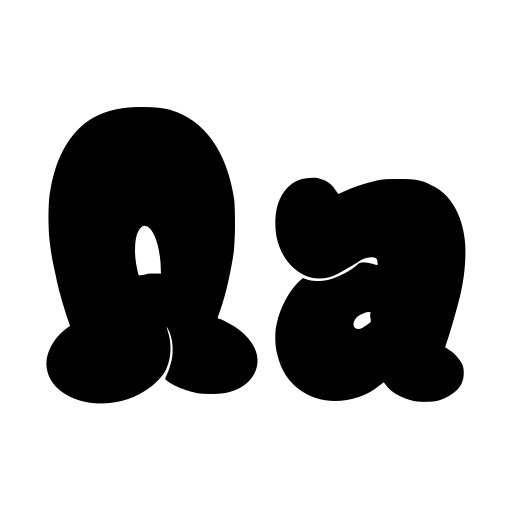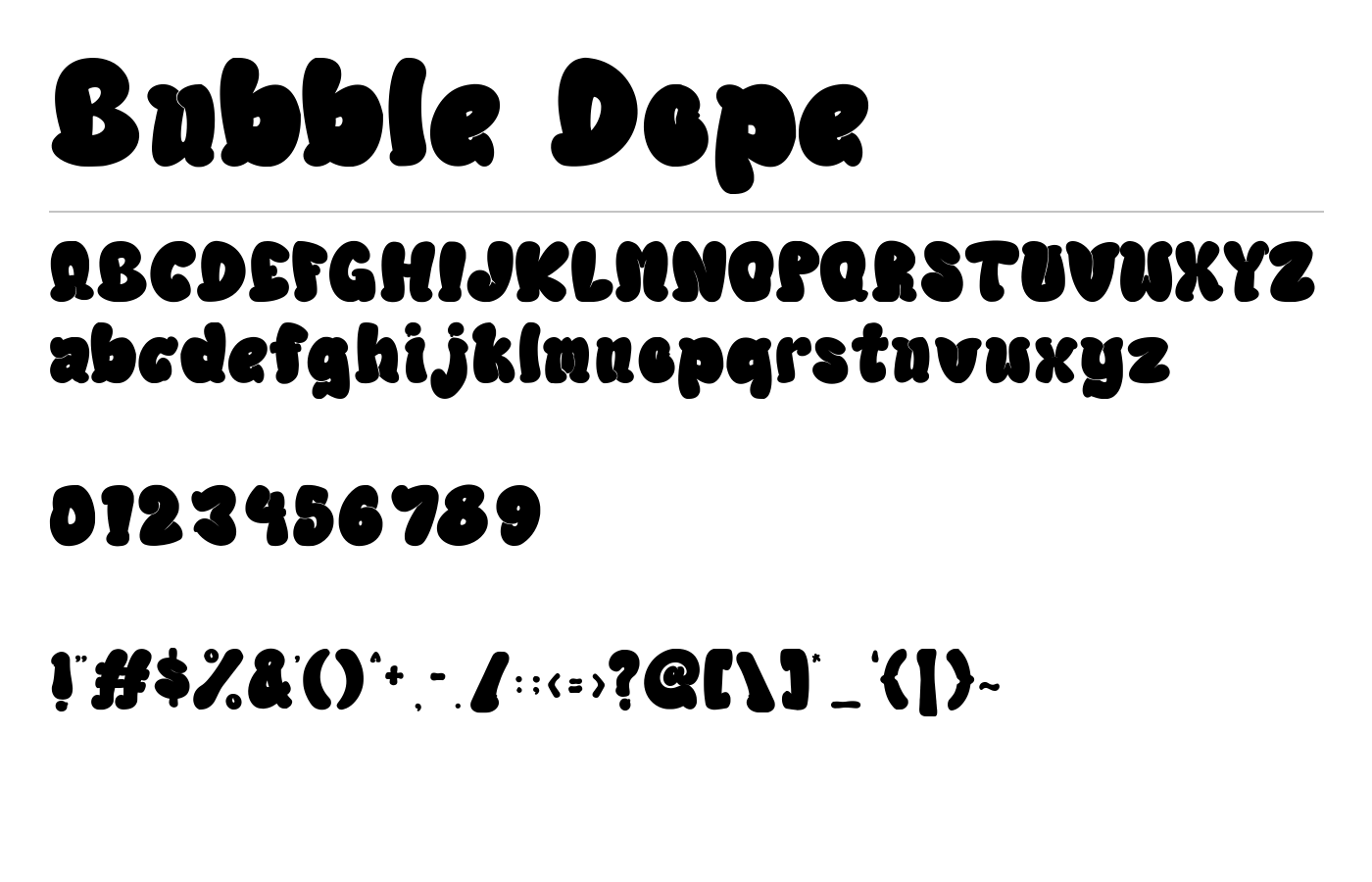
Bubble Dope is a bold, playful sans serif font with thick, rounded letterforms that create a bubbly and friendly vibe. Its high x-height and soft, organic shapes make it ideal for eye-catching headlines and fun, informal designs, perfect for brands targeting a youthful or creative audience. This font works well in packaging, posters, and logos where a lively and approachable style is desired.
Bubble Dope Font
About Bubble Dope Font